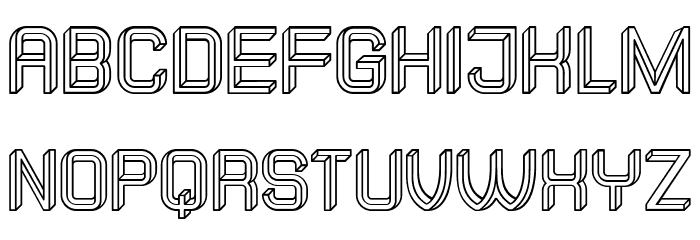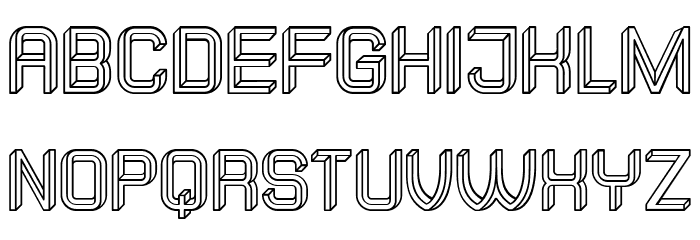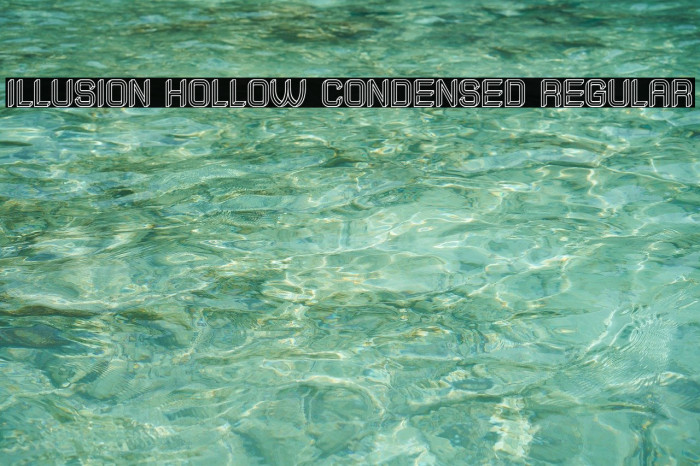
Illusion Hollow Condensed Regular Font
This font features a unique hollow design with a three-dimensional illusion effect. Each character is outlined with a double line, creating a sense of depth and perspective. The style is geometric and structured, with sharp angles and clean lines. The condensed nature of the font allows for efficient use of space, making it suitable for bold headlines and impactful designs. The uppercase letters are consistent in height, providing a uniform appearance across the text. The font's hollow aspect gives it a modern and futuristic look, ideal for projects that require a standout visual element.
A hollow, three-dimensional font with a geometric and modern style.
- Font: Illusion Hollow Condensed Regular
- Proposed Projects: Ideal for posters, logos, and branding materials that require a bold and modern aesthetic.